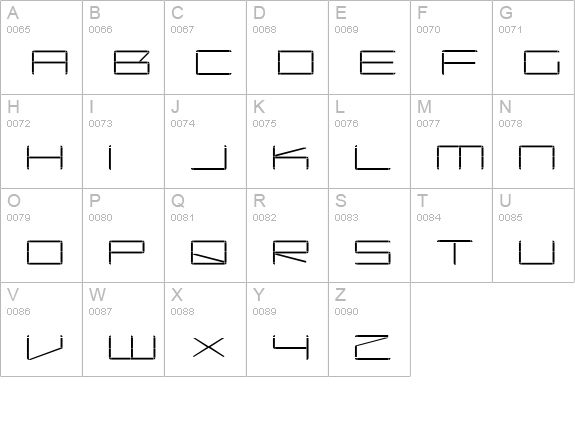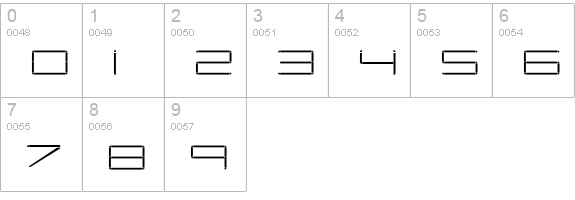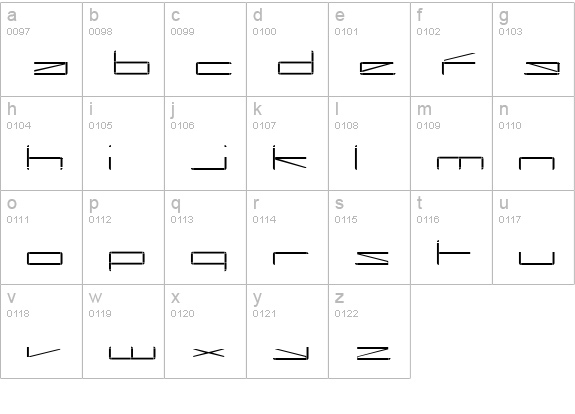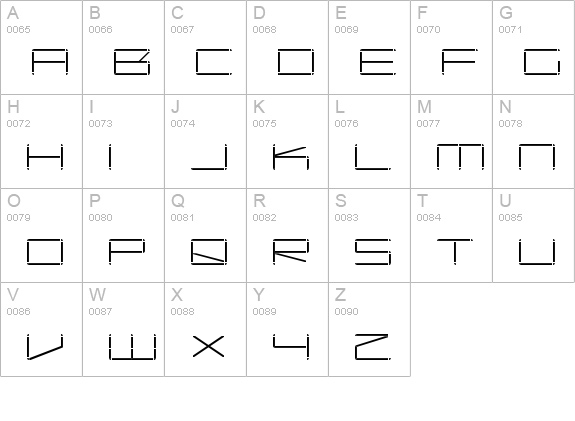
Capacitor Font Details
Capacitor font is a modern and sleek typeface that exudes sophistication and style. Its clean lines and sharp edges make it perfect for a variety of design projects, from branding to editorial layouts. The geometric shapes of this font give it a futuristic and edgy feel, making it a versatile choice for both digital and print applications. What sets Capacitor font apart is that it is not only visually striking, but also completely free to use. Whether you're a professional designer or a hobbyist looking to elevate your projects, Capacitor font is a fantastic addition to your font library. You can easily download this font for free at FontsMarket.com, where you'll find a wide selection of high-quality fonts for all your creative needs. Don't miss out on the opportunity to enhance your designs with the sleek and stylish Capacitor font!